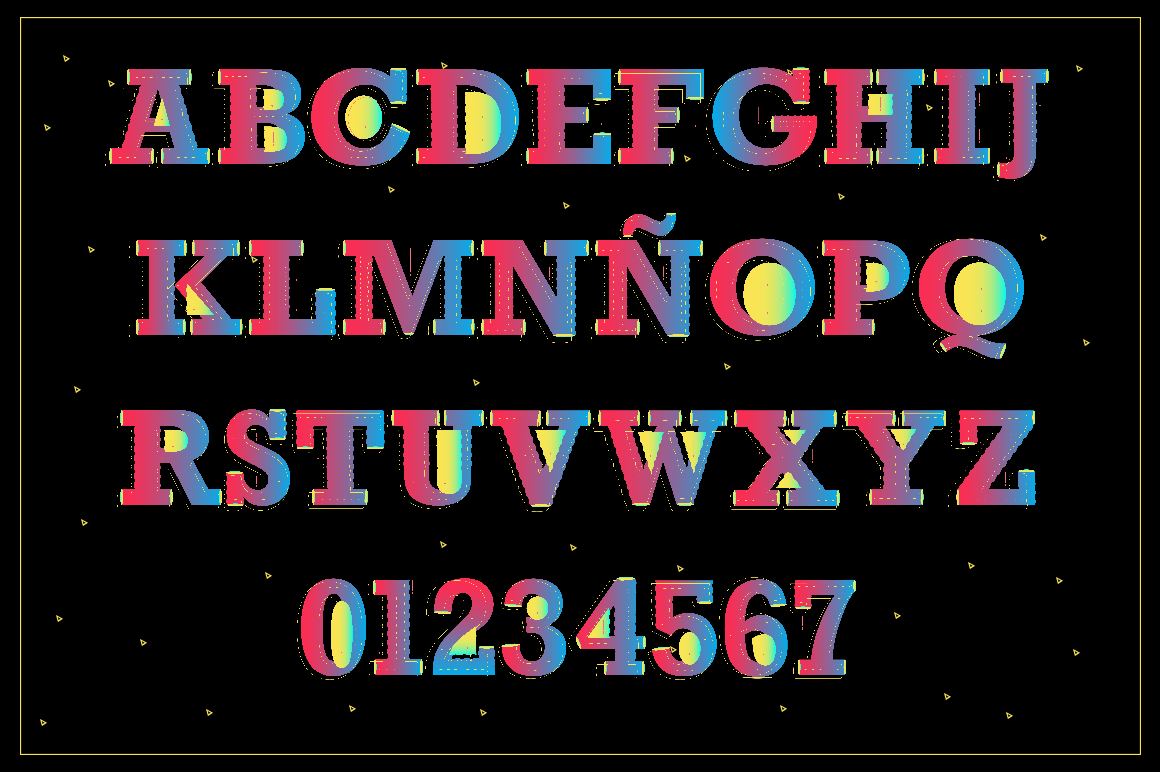
Helana Font
Helena is a very colorful font with which you can make very beautiful designs. Includes a poster with the signs in vector. And a OpenType file which means this font will show up only in apps that are compatible with color bitmap fonts, like Adobe Photoshop CC 2017.0. For more information to install this font: https://helpx.adobe.com/typekit/using/ot-svg-color-fonts.html